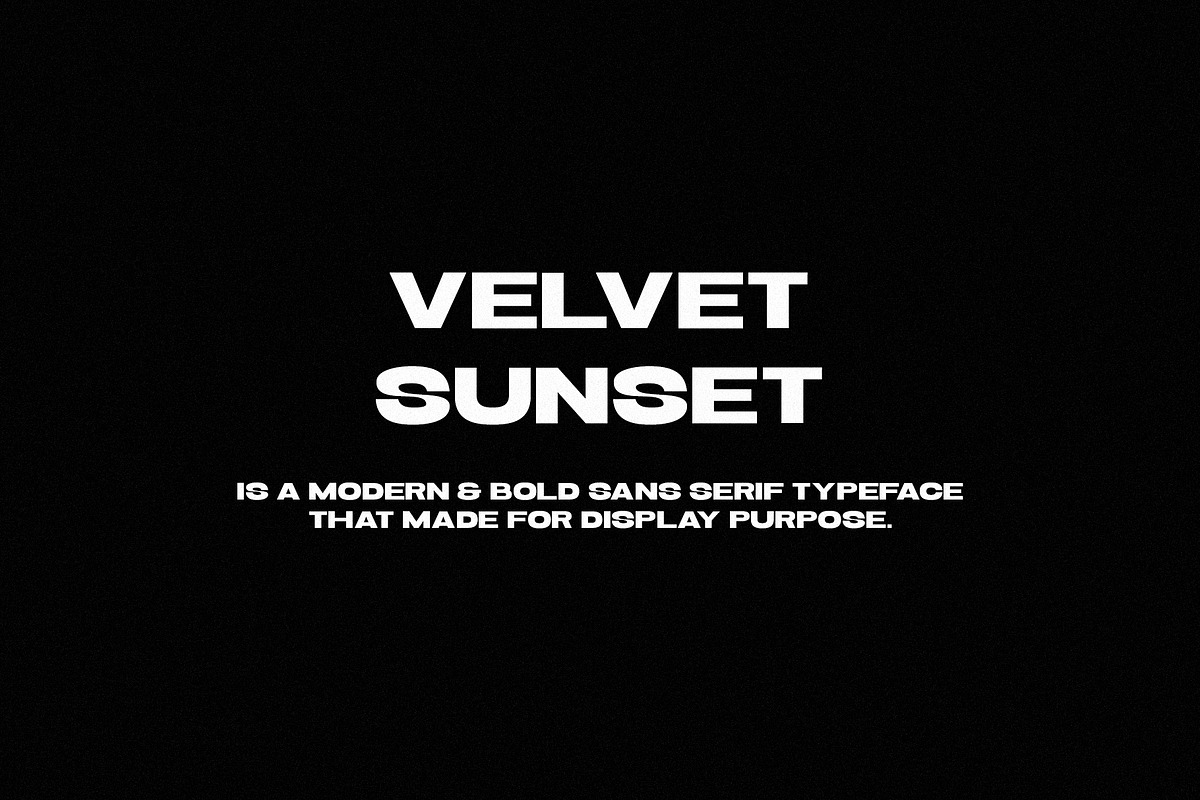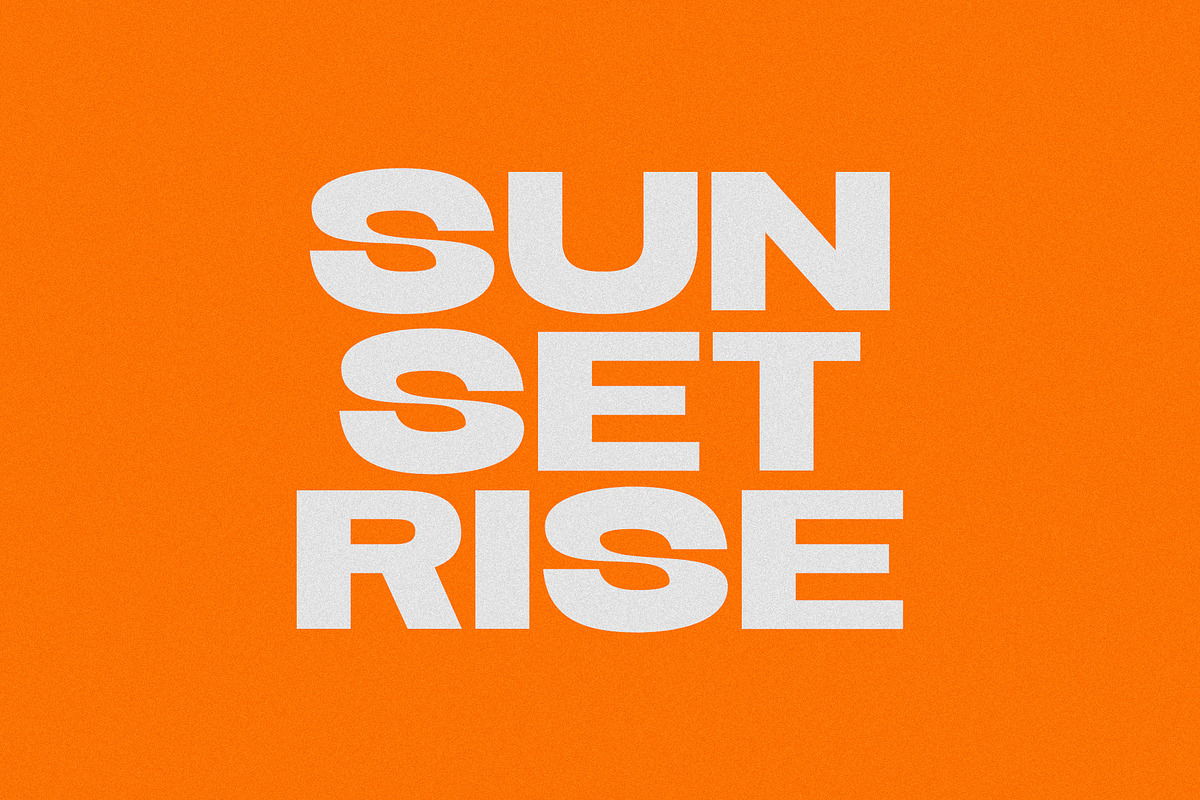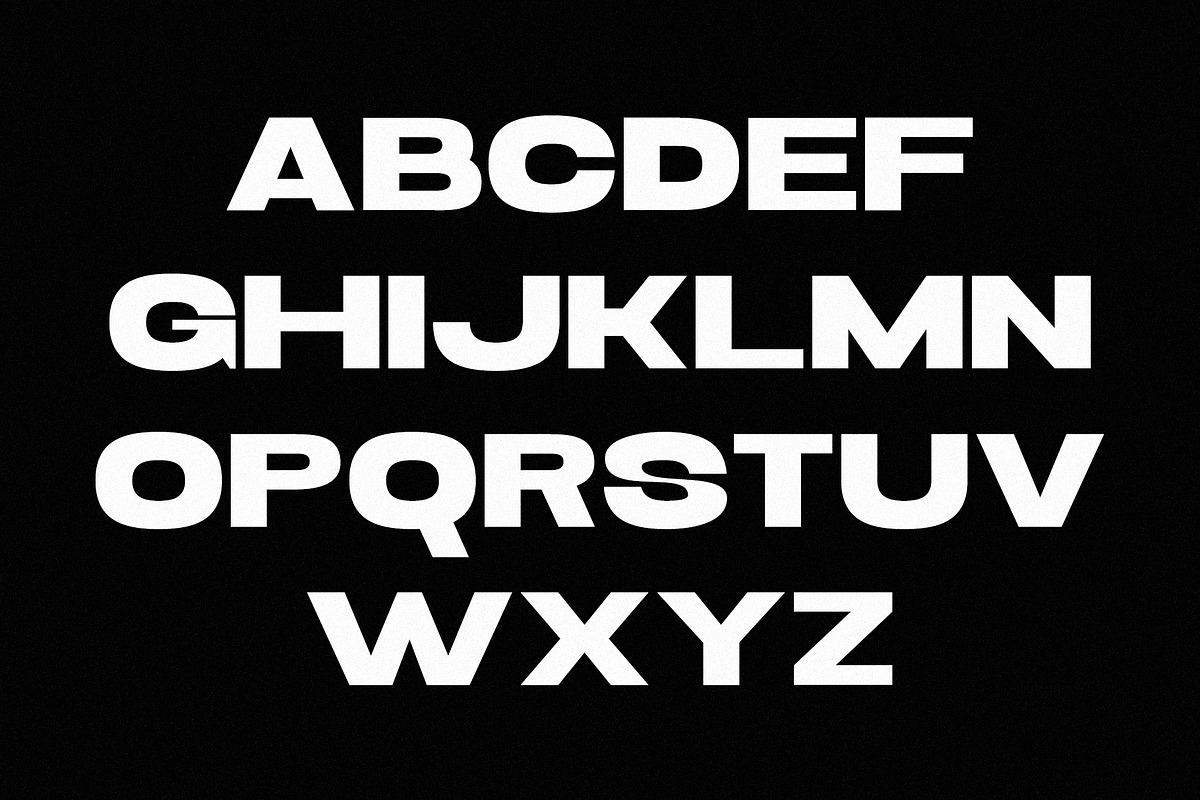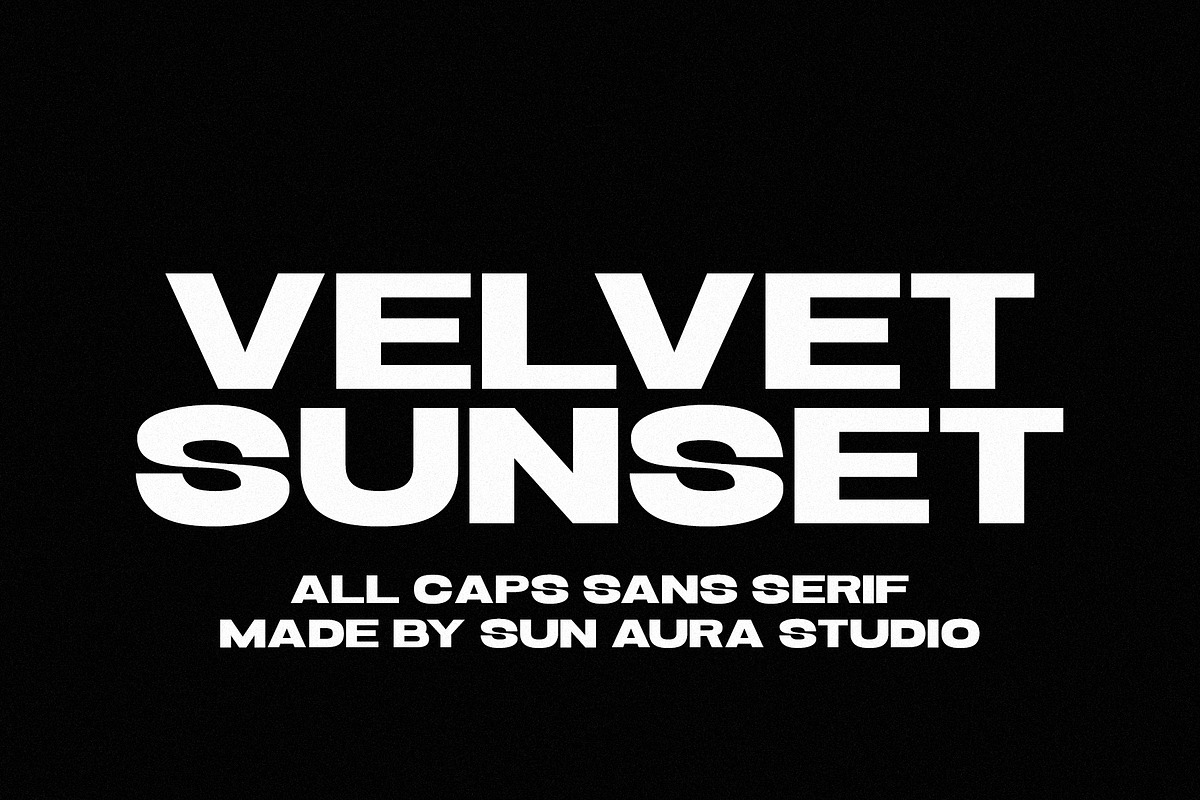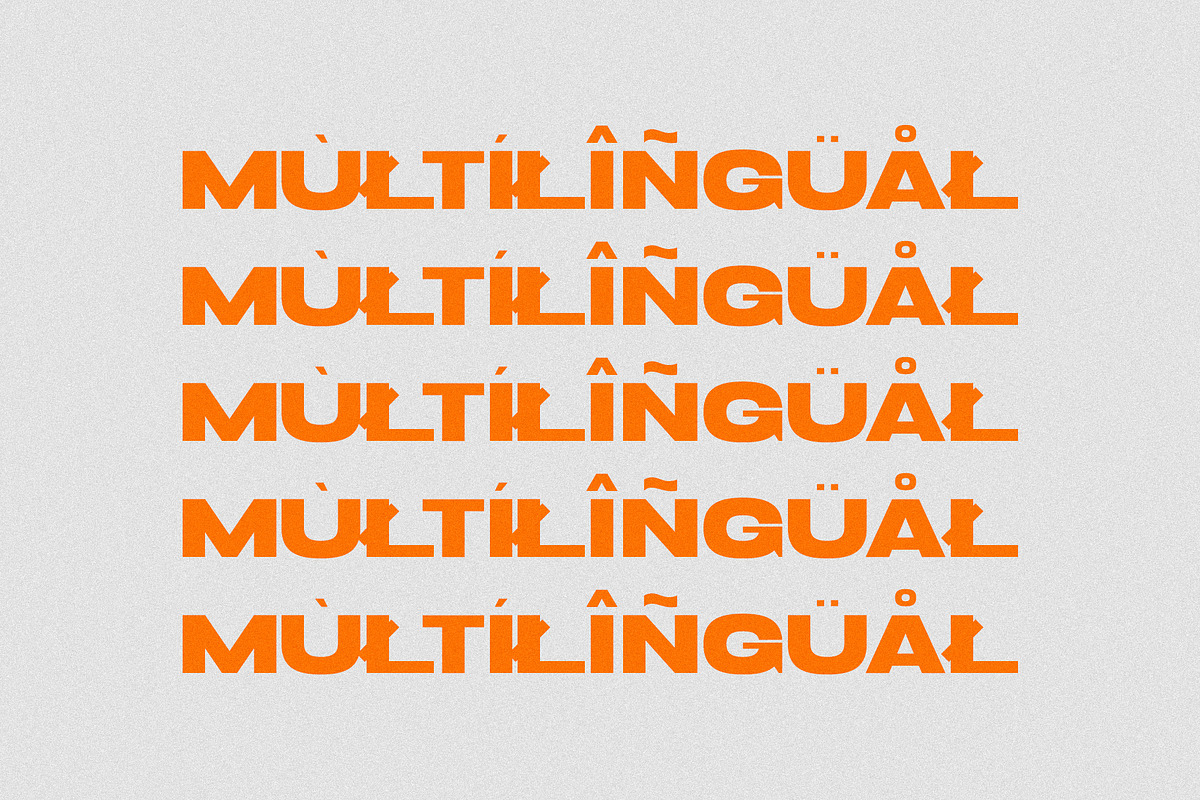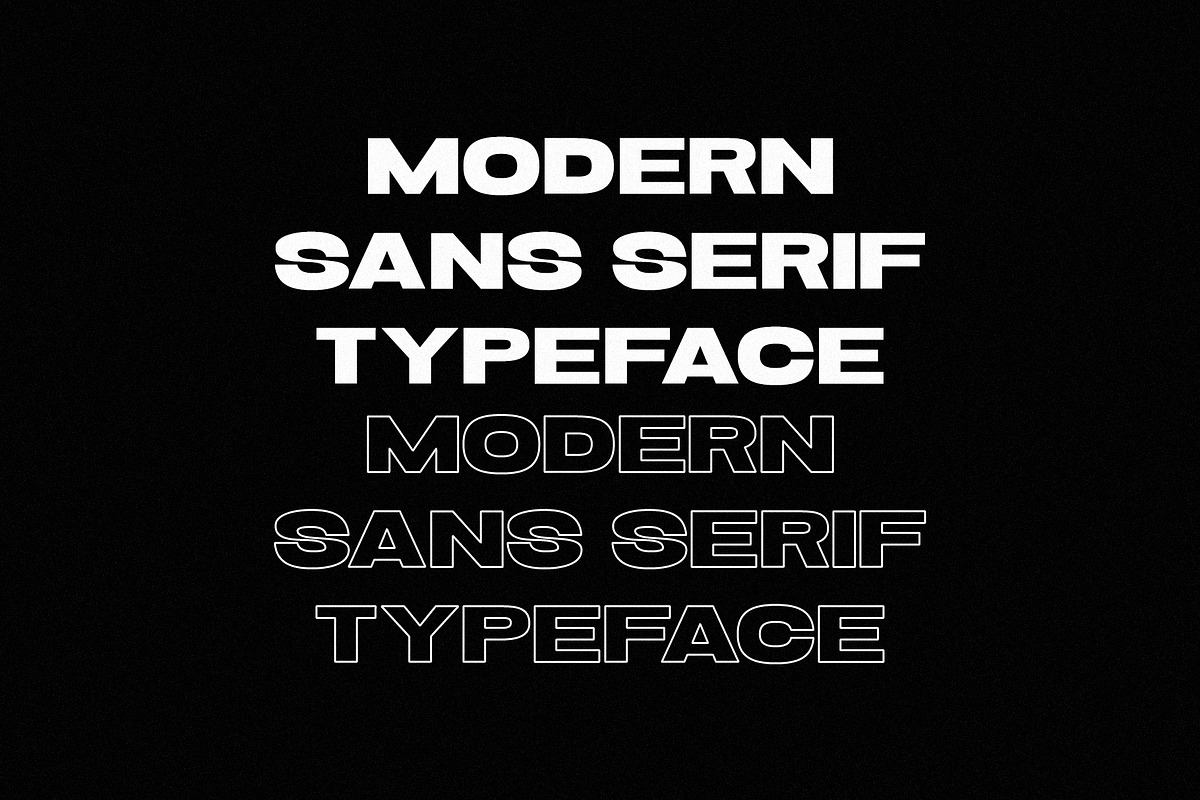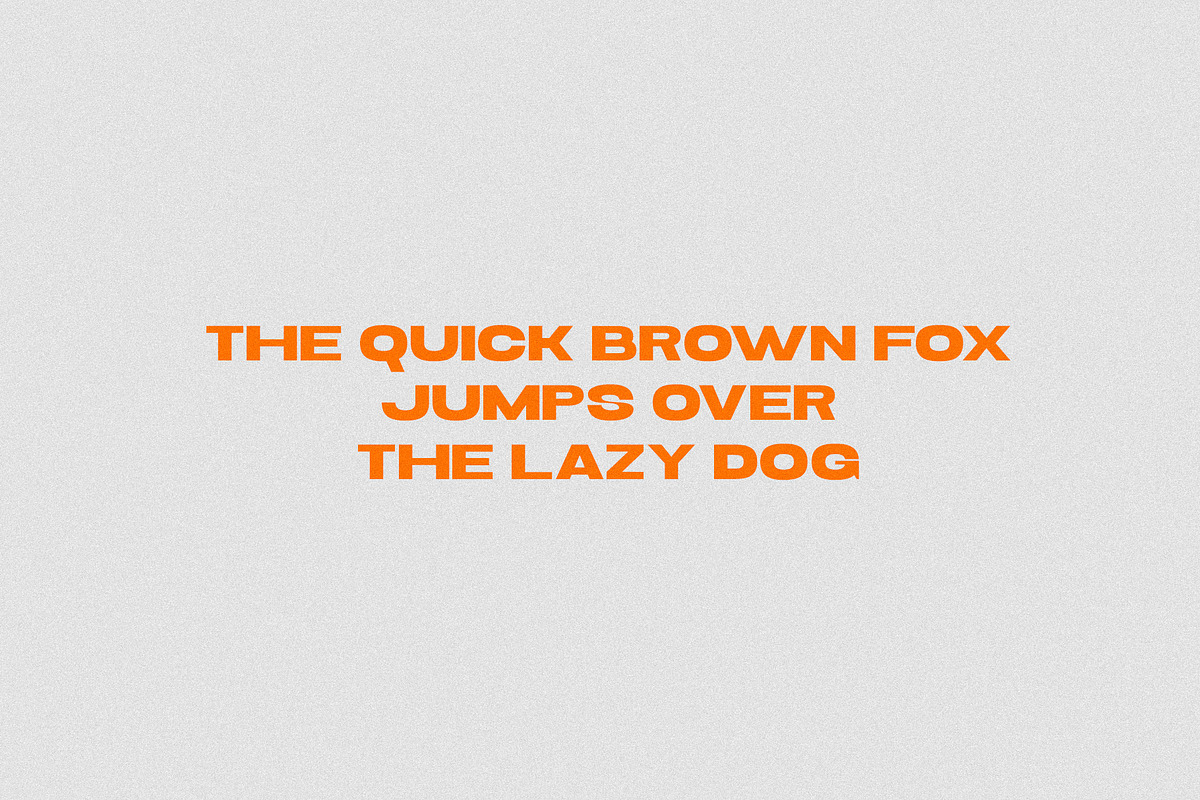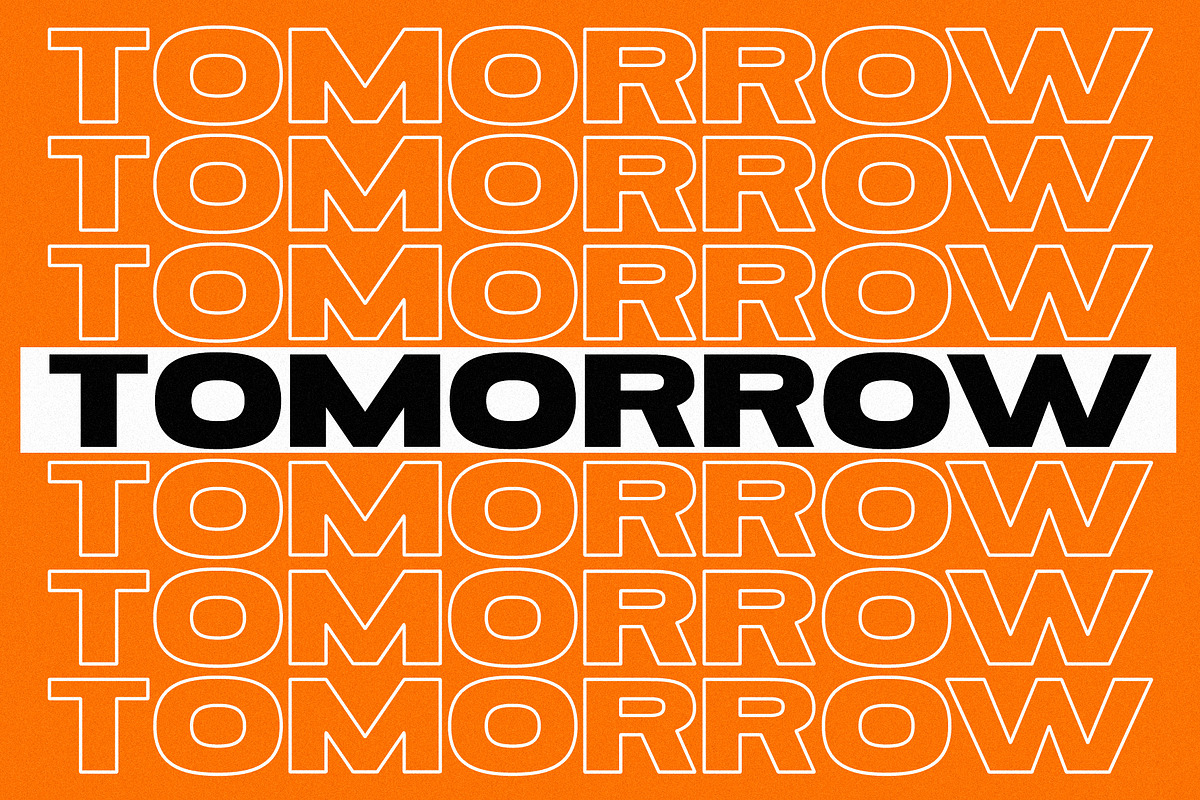
Velvet Sunset - Modern Sans Serif
Velvet Sunset is a modern all-caps serif typeface designed to bring elegance and personality to your work. With its clean lines, refined serif details, and confident character, it feels both timeless and fresh. Whether you're creating a logo, brand identity, packaging, magazine layout, or social media graphic, Velvet Sunset adds a touch of sophistication without feeling overly formal. Its bold yet graceful style helps your designs stand out while maintaining a warm, polished, and effortlessly stylish look.